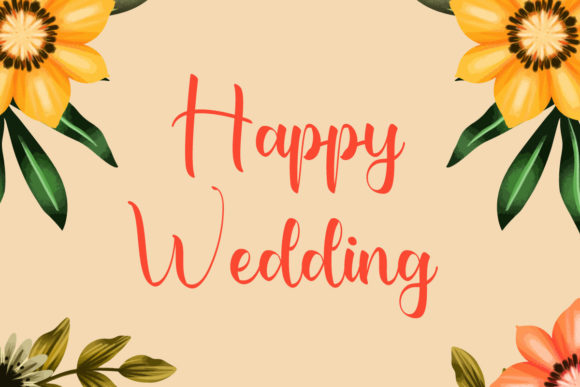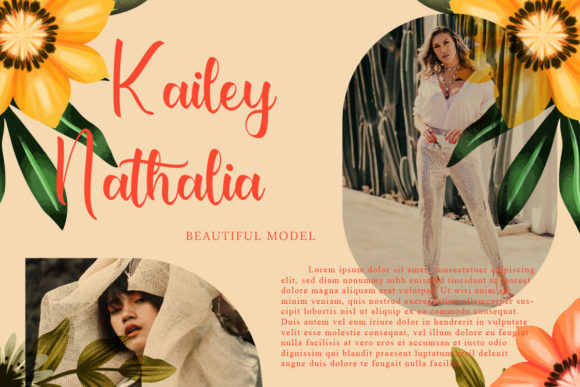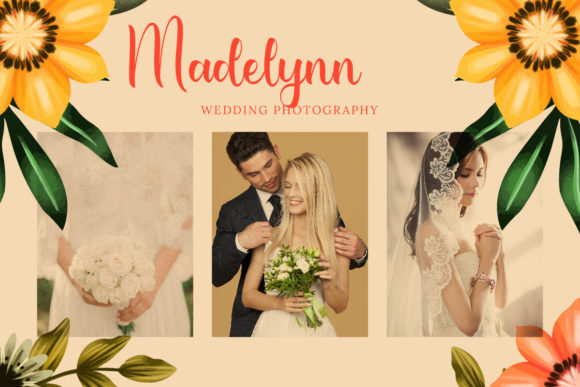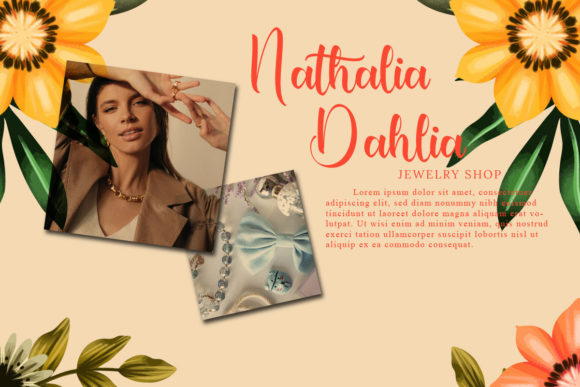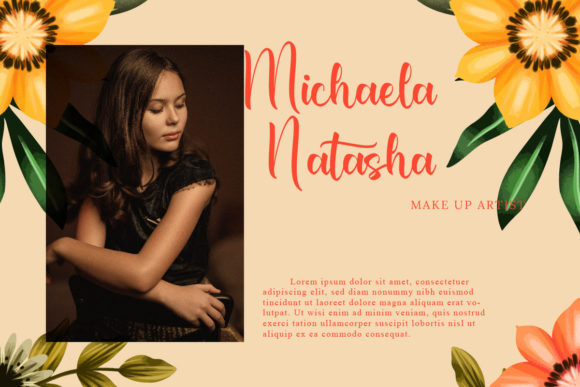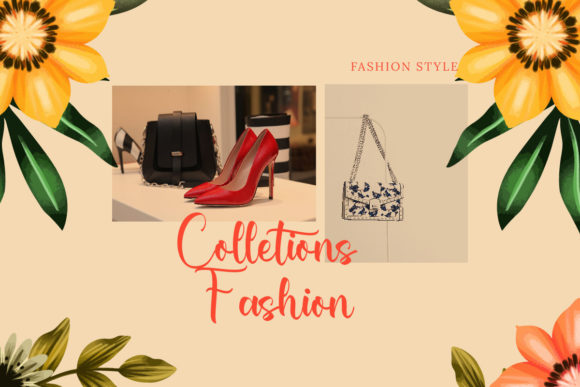
Introduction to Catherine Makayla Font
Have you ever found yourself stuck in a creative rut, struggling to bring your design project to life? I know I have. But then, it happens – a spark of inspiration strikes, and everything falls into place. For me, it was discovering the Catherine Makayla Font. Its delicate, elegant, and flowing handwritten style had me hooked from the very first glance. As I delved deeper into the world of this beautiful font, I realized just how valuable it could be for designers like you and me.
With its high-quality characters and well-balanced design, the Catherine Makayla Font is a game-changer for any creative project. Whether you’re working on a design resource for a blog, a social media campaign, or a marketing brochure, this font is sure to elevate your work to the next level. And the best part? It’s a free download, making it accessible to designers of all levels.
Catherine Makayla Font
- High-quality design with a transparent background, making it perfect for creative projects that require a touch of elegance.
- Features a unique, hand-drawn style with subtle nuances, giving it a distinctive character that sets it apart from other fonts.
- Designed specifically for use in digital and print media, including logos, branding, and packaging design.
- Can be easily customized and manipulated using various design tools and software, making it a versatile design resource.
Honest Review: Catherine Makayla Font
I recently had the chance to work with the Catherine Makayla Font, and I must say, it’s a high-quality addition to any design project. This elegant script font is perfect for creating a unique and sophisticated look in your creative project.
- ✨ The font’s transparent background makes it incredibly versatile and easy to use, allowing you to overlay it on any image or background.
- ✨ The font’s high quality is evident in its smooth lines and precise lettering, making it perfect for printing or digital use.
- ⚠️ The font only comes in a few weights, which may limit its use in certain design applications.
- ⚠️ The font is not suitable for titles or headings, as it can be difficult to read in large sizes.
Overall, I’m impressed with the Catherine Makayla Font. It’s a great design resource for anyone looking to add a touch of elegance to their creative project. With its high quality, transparent background, and free download option, it’s a must-have for any designer’s toolkit.
Catherine Makayla Font
To get the most out of the Catherine Makayla Font, use it in conjunction with high-quality images and a transparent background to create a visually appealing design. You can also experiment with different font sizes, styles, and colors to add depth and interest to your project.
The Catherine Makayla Font is a versatile design resource that can be used for a variety of creative projects, such as social media graphics, blog posts, and marketing materials. It’s also a great choice for creating a free download or promotional item, such as a printable or template.